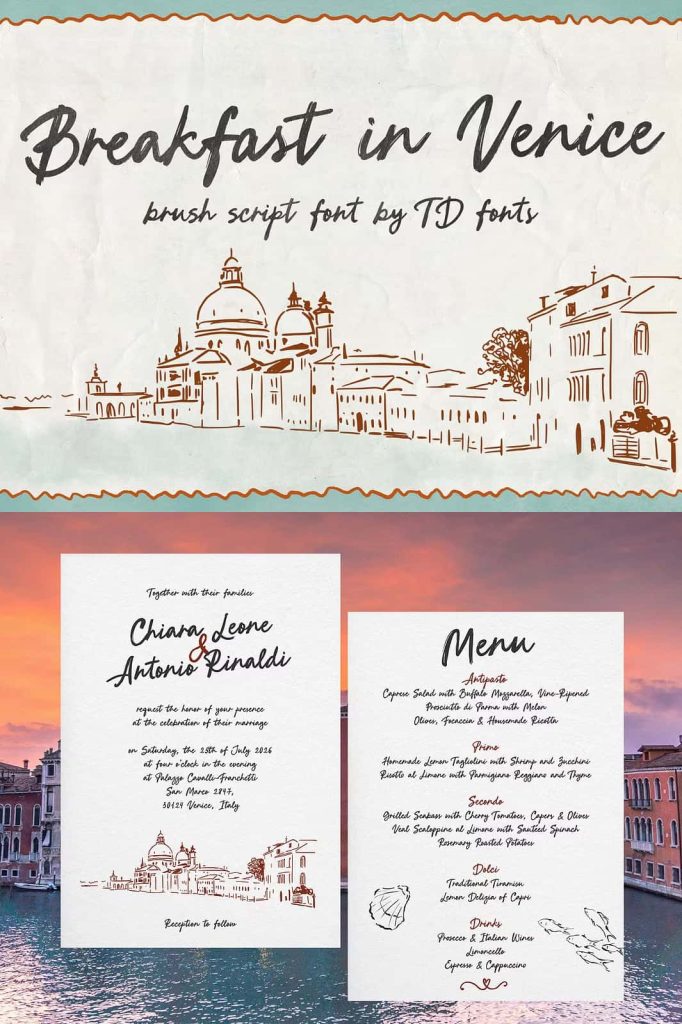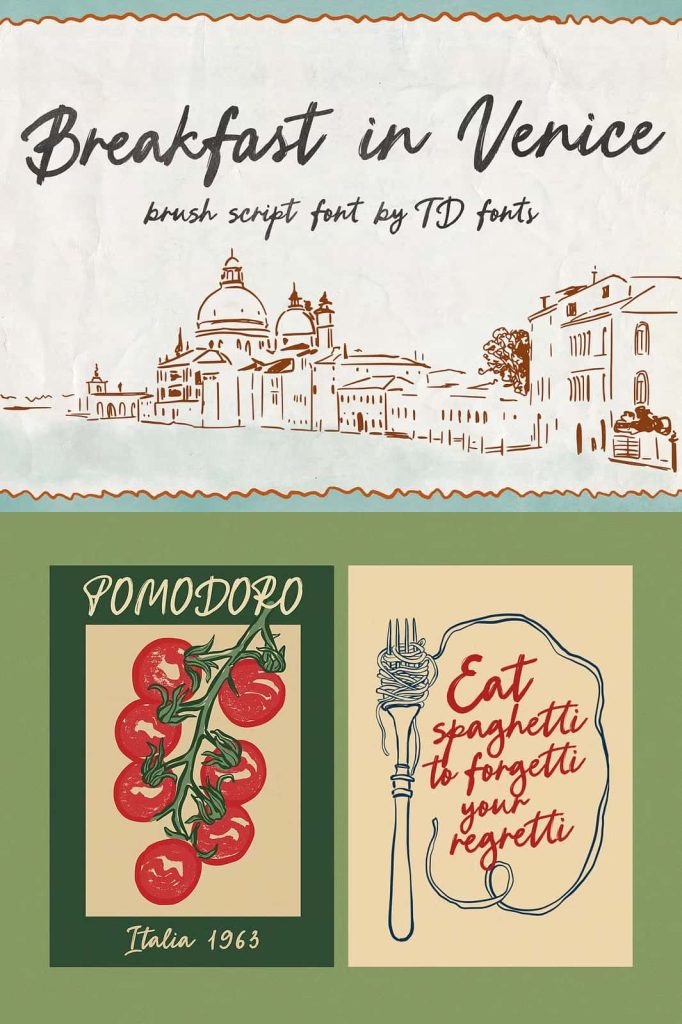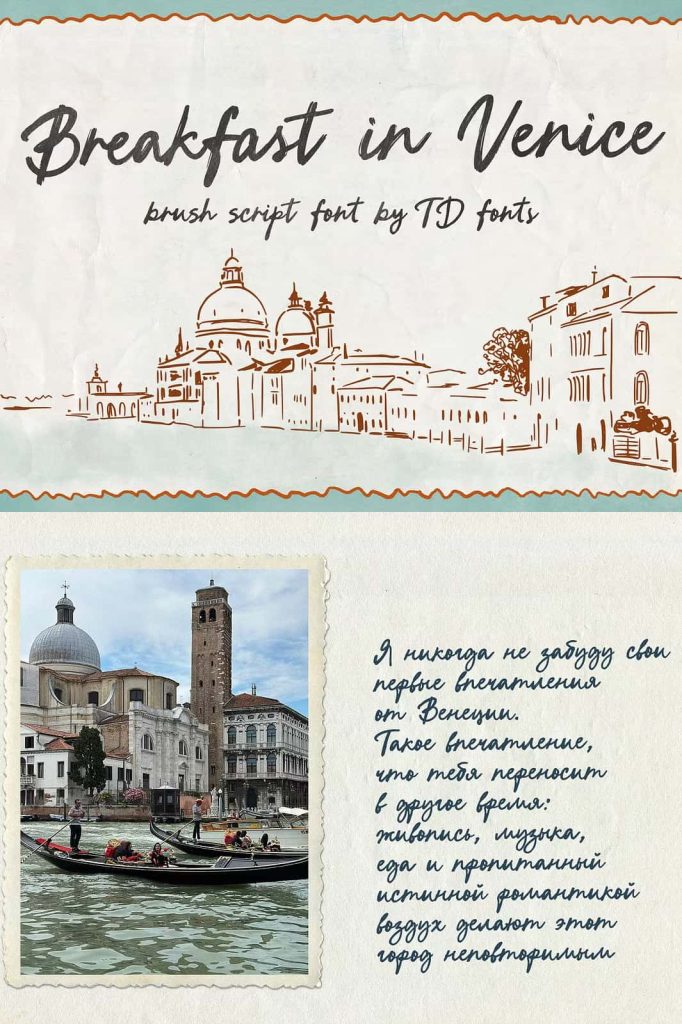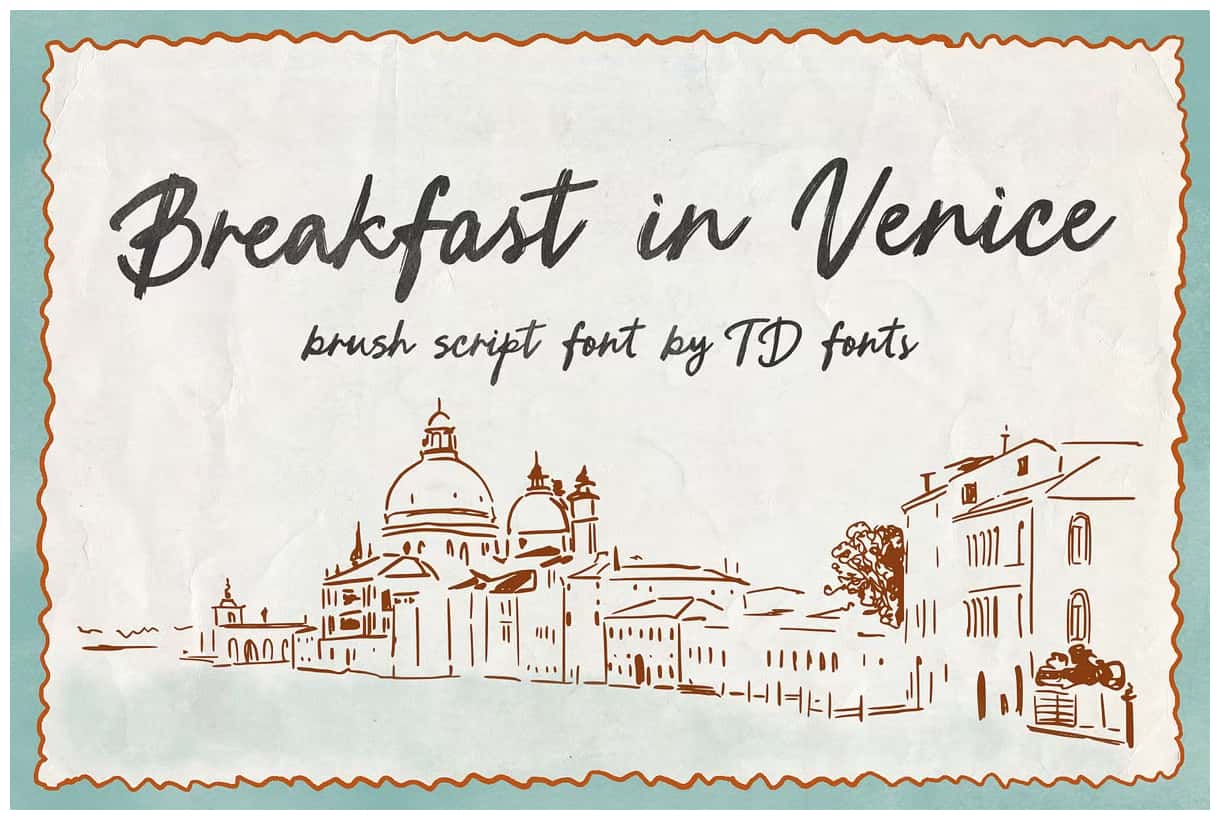
Breakfast in Venice Font: Bold Handwritten Energy with Artistic Flair
Breakfast in Venice Font captures the essence of creative expression through bold, textured brush strokes. It’s a modern handwritten script that bursts with personality and movement. Designed for those who love authenticity and visual impact, this typeface brings energy, warmth, and spontaneity to any design project. With multilingual support, stylistic alternates, and handcrafted details, Breakfast in Venice stands out as a truly versatile choice for branding, packaging, and digital design.
A Modern Handwritten Brush Script with Character
Every stroke in Breakfast in Venice feels intentional yet organic. It’s a bold handwritten brush script that embodies freedom, rhythm, and emotion. The textured look adds depth and visual interest, making it ideal for designs that aim to feel natural and full of life. Whether printed on posters, apparel, or packaging, the font instantly communicates creativity and boldness. Its distinctive flow mirrors the fluid motion of real brushwork, adding authenticity to every word.
Perfect for Branding and Expressive Design
This font shines in branding and visual storytelling. Its confident brush strokes make it perfect for logo design, headline typography, and promotional materials. Breakfast in Venice Font helps brands express individuality and energy — ideal for creative agencies, fashion labels, cafes, lifestyle products, or handmade goods. Its unique handwritten quality ensures every logo and design element feels one-of-a-kind, resonating with audiences that value originality and artistry.
Textured Detail Meets Modern Elegance
What makes Breakfast in Venice special is its rich textured design. The font replicates the organic imperfections of real brush lettering, adding charm and visual warmth. It avoids the stiffness of digital scripts by embracing the beauty of uneven edges and natural pressure variation. This balance between imperfection and sophistication gives the font a sense of authenticity, making it equally suitable for elegant branding or casual creative projects.
Multilingual Support and Versatile Alternates
Breakfast in Venice Font offers complete multilingual support, allowing designers worldwide to use it seamlessly across languages. It also features a wide range of stylistic alternates, giving you creative control over every letterform. Alternate glyphs, swashes, and ligatures make it easy to customize your text and achieve a unique, handcrafted feel. Whether you want a dynamic headline or a subtle accent, these options let you fine-tune your typography for maximum impact.
Ideal for Print and Digital Media
From social media graphics to product labels and editorial layouts, Breakfast in Venice adapts effortlessly to any medium. It retains its textured detail and handcrafted charm across both digital and print formats. The bold weight ensures excellent legibility even at smaller sizes, while its natural rhythm creates visual harmony in larger displays. Designers can rely on it for both creative versatility and technical reliability.
Stand Out with Playful Imperfection
Breakfast in Venice celebrates imperfection as a form of art. Its playful quirks and hand-drawn details make each design feel spontaneous and alive. Use it to break away from sterile digital typefaces and embrace the human touch that modern audiences crave. Whether crafting an event poster, designing packaging, or creating social content, this font instantly draws attention and evokes emotion.
Why Choose Breakfast in Venice Font
• Bold and Handcrafted: Combines energetic brush strokes with human warmth.
• Textured Design: Adds depth and authenticity to every project.
• Multilingual and Flexible: Supports global design use with stylistic alternates.
• Perfect for Branding: Ideal for logos, packaging, and creative campaigns.
By choosing Breakfast in Venice Font, you invite energy, authenticity, and individuality into your designs. It’s a typeface that moves beyond aesthetics — it tells a story. With its dynamic brush texture and expressive curves, every letter feels alive, making it a powerful tool for designers who want to connect emotion with design.
Bring Artistic Expression to Your Work
Whether you’re designing a brand identity, a fashion label, or a social campaign, Breakfast in Venice Font will infuse your work with personality and emotion. Its handcrafted essence and confident movement make it ideal for projects that demand authenticity and boldness. Bring your creativity to life with a font that feels as free and vibrant as the city it’s named after — Breakfast in Venice, where design meets artistry.